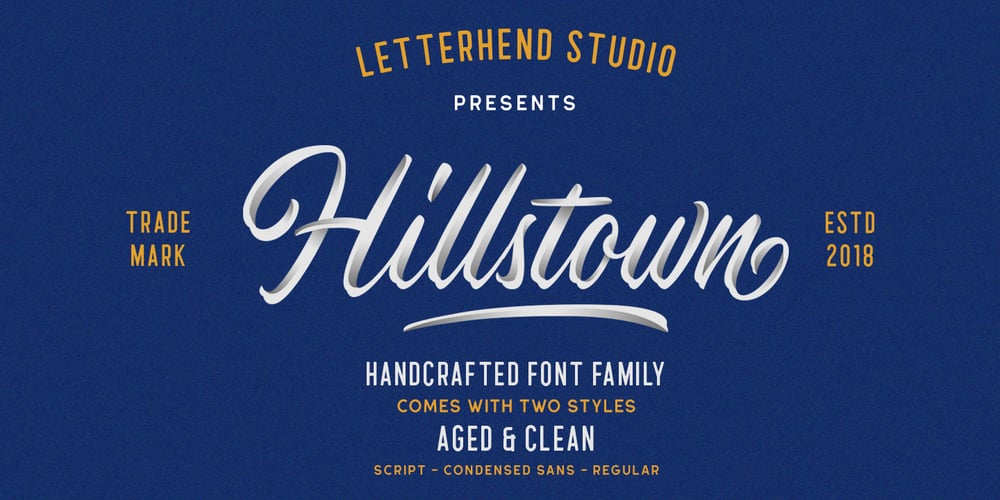
Hillstown Font Family was designed by Hendry Juanda and published by Letterhend. Hillstown contains 6 styles and family package options. Hillstown Font Family is a font collection that contains three different styles that will perfectly complement each other. You will get script, sans, and condensed sans in a clean and aged version for each style. The classic feel is really perfect when you need a typeface for a logotype, apparel, invitation, branding, packaging, advertising, and more. Hillstown comes in uppercase, lowercase, with punctuations, symbols and numerals, 09 stylistic set alternate, ligatures. There is multi-lingual support and Hillstown is already PUA encoded.